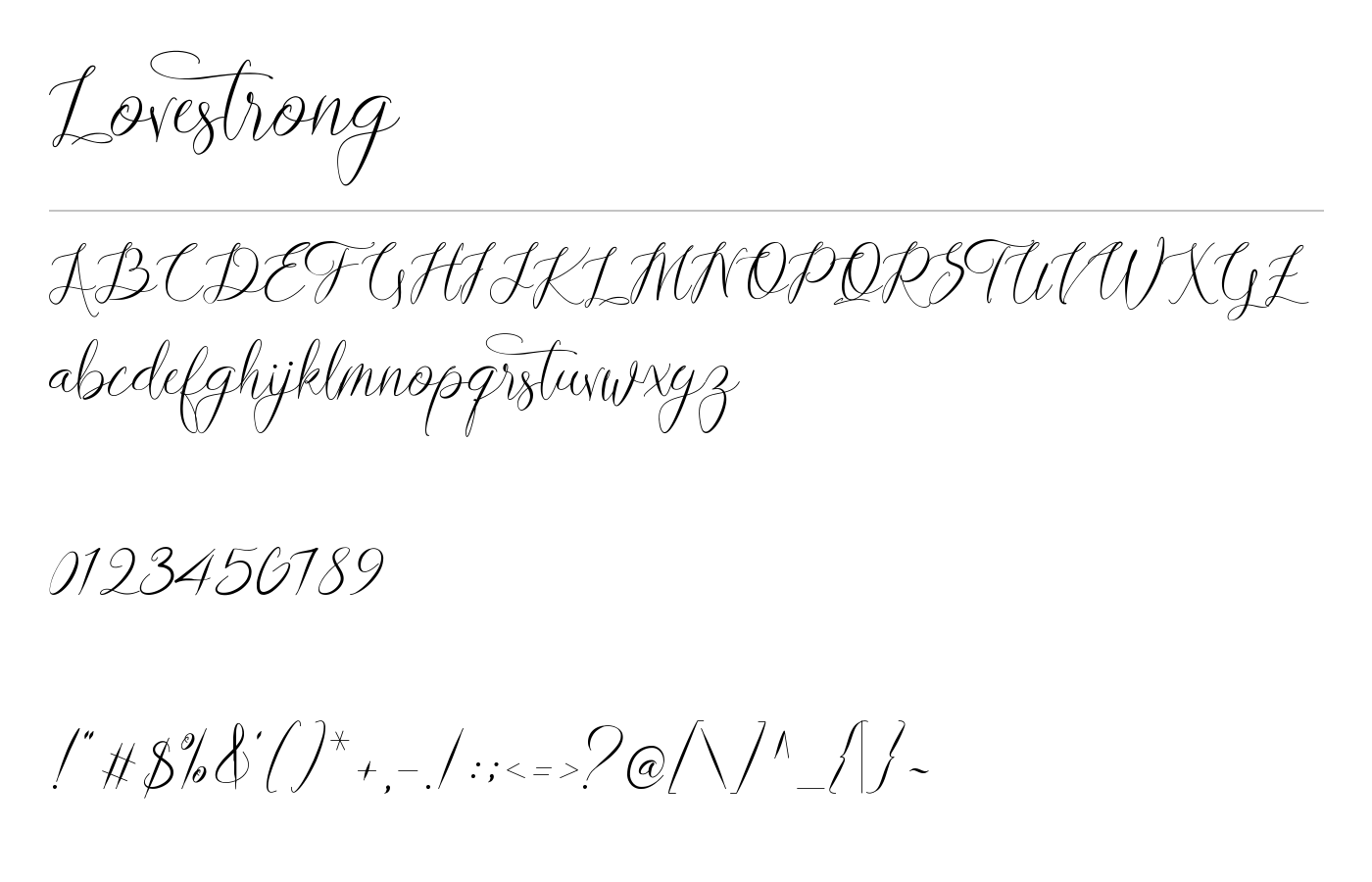
Lovestrong is an elegant, delicate script font characterized by its flowing, calligraphic strokes and graceful swashes. Its thin, high-contrast lines and intricate letterforms convey a romantic and sophisticated feel, making it ideal for invitations, branding, and projects that require a touch of luxury and refinement. This font works beautifully in decorative uses such as wedding stationery, logos, and upscale packaging where elegance and style are paramount.
Lovestrong Font
About Lovestrong Font
| Font family | Lovestrong Font |
| Designer | Rometheme |